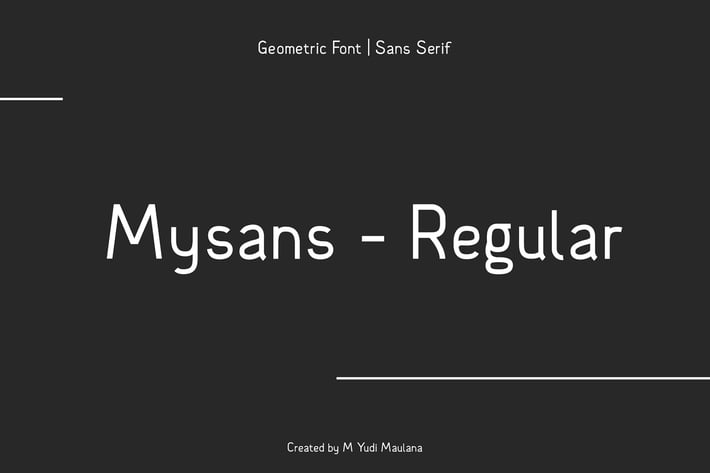
Mysans M Sans Serif Font
is inspired by famous logos. It’s simple, yet classy, and was made with precision and measured. It’s perfect for logos & branding, photography, invitations, watermarks, advertisements, product designs, stationery, wedding designs, labels, product packaging, and much more!